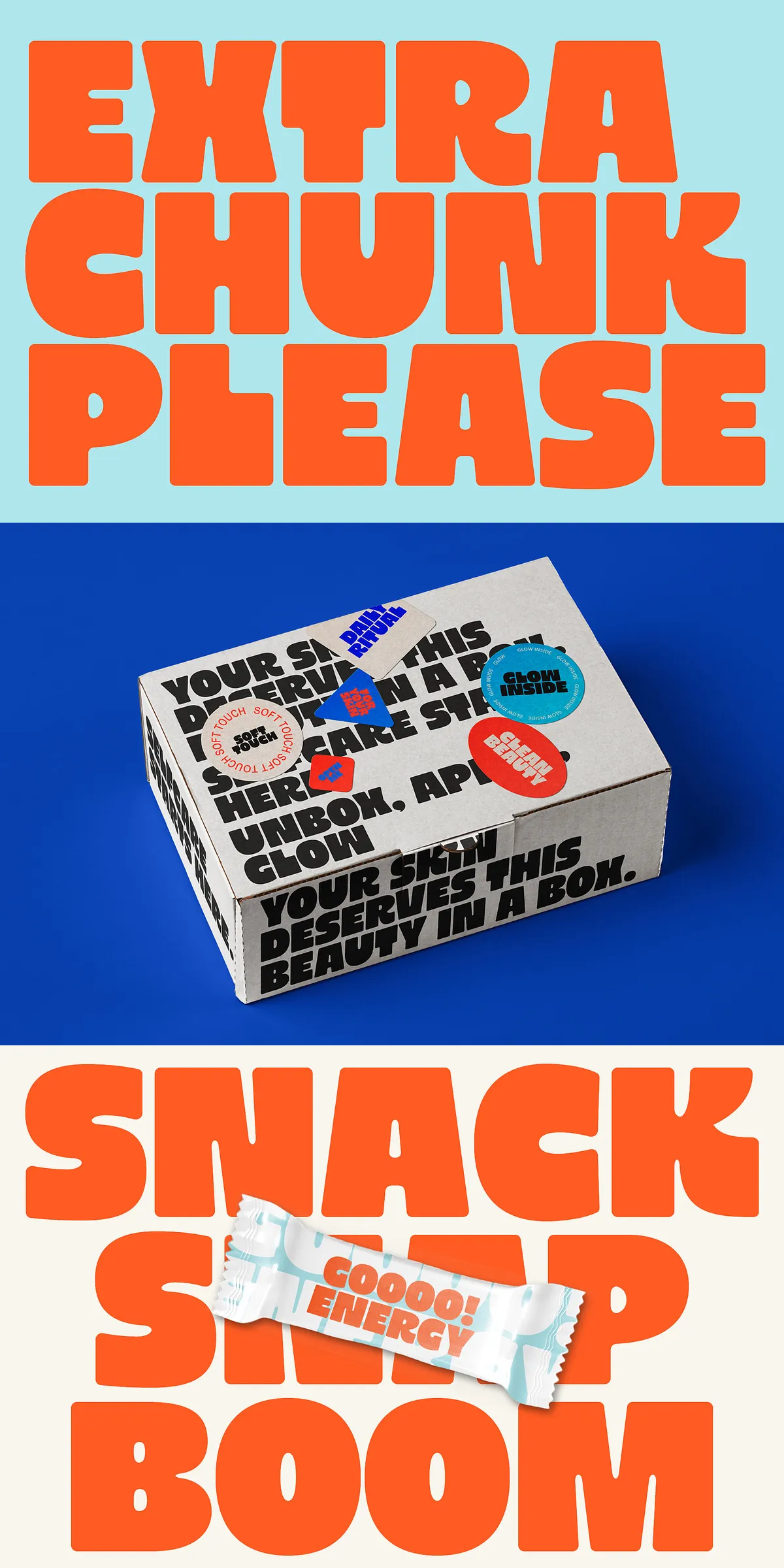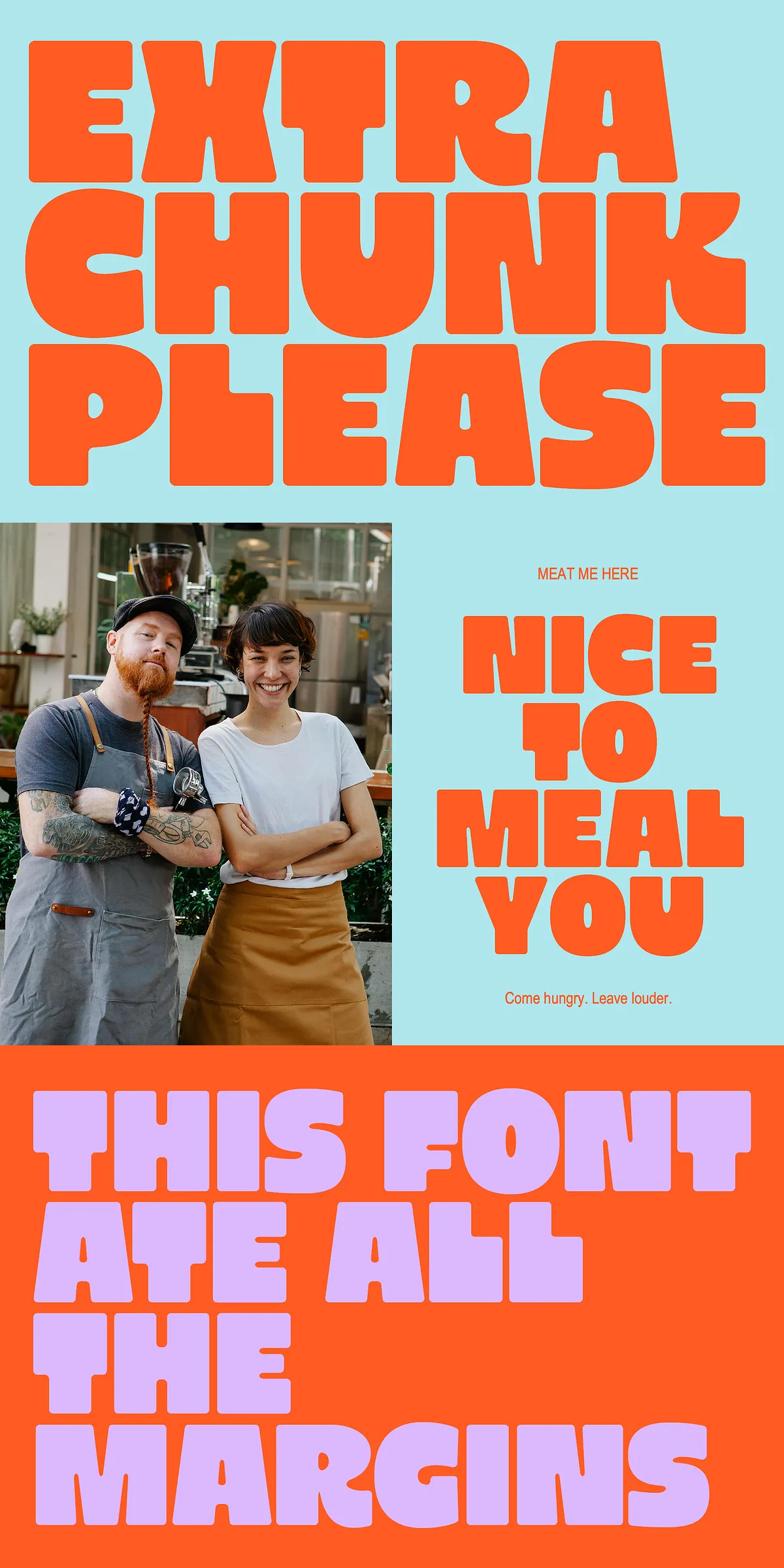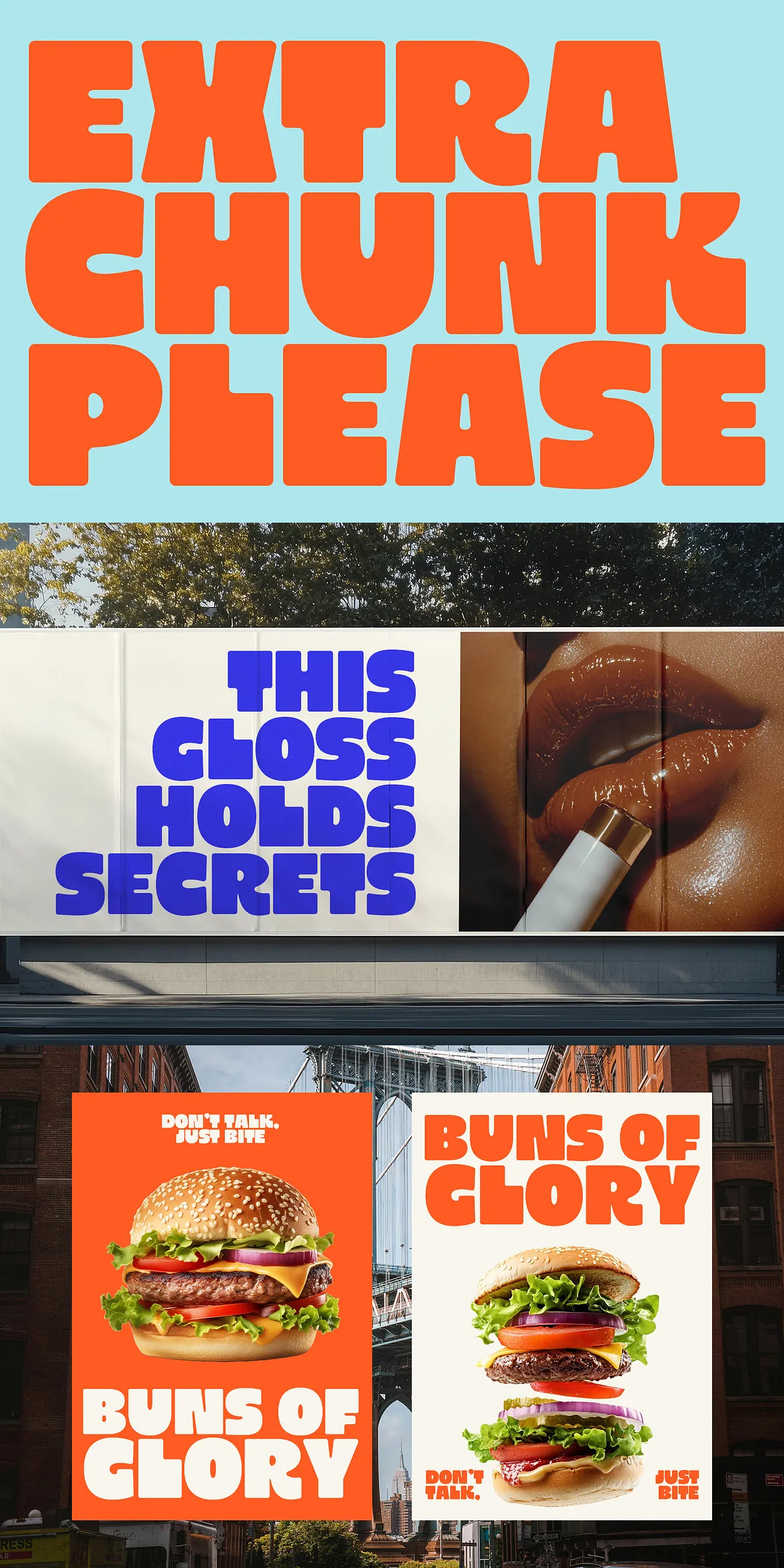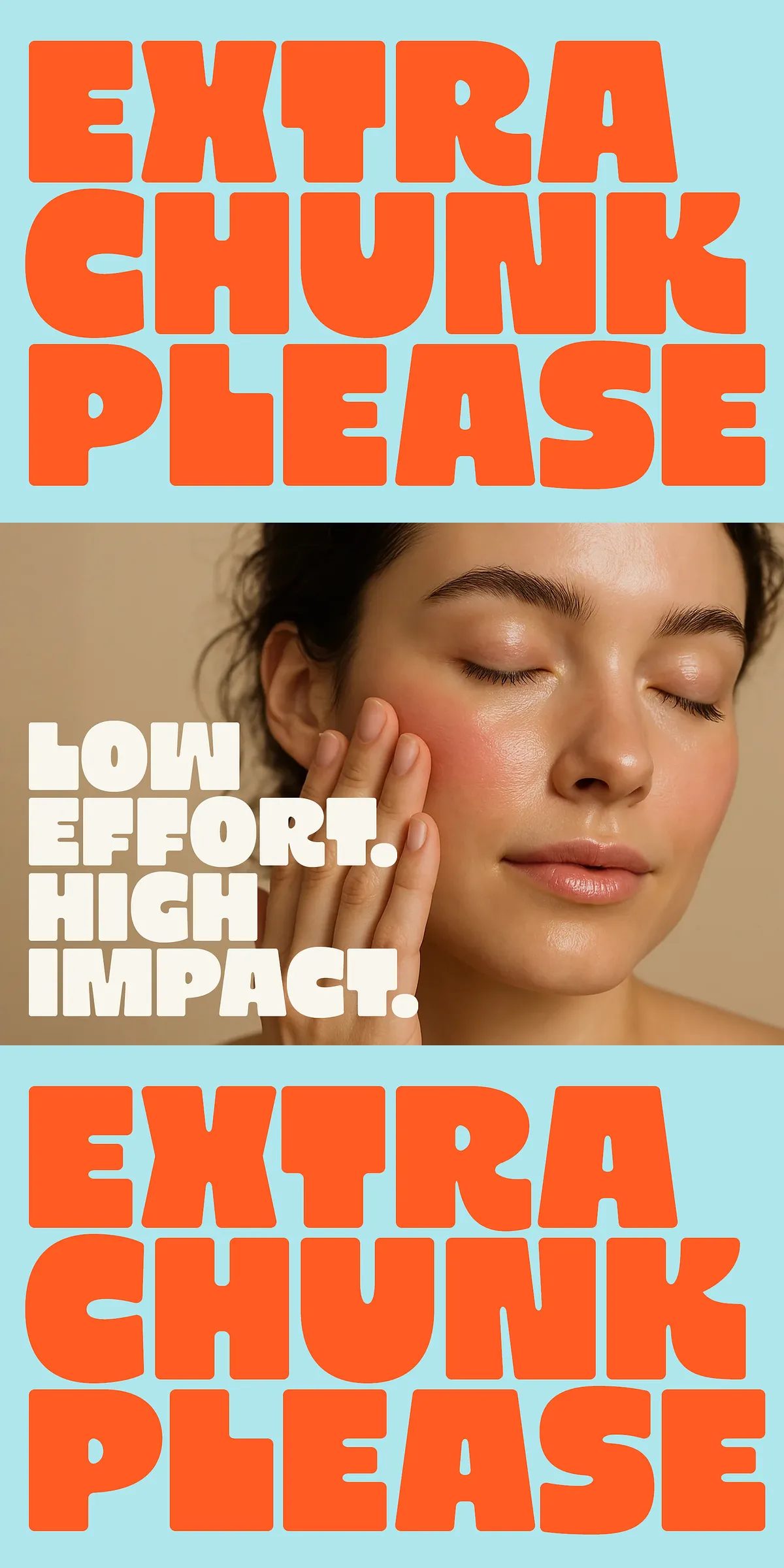
Extra Chunk Please is a modern display font that masterfully combines bold geometric shapes with playful minimalism to create an eye-catching and versatile typographic tool. Designed with rounded edges and a strong character structure, this font is ideal for designers seeking a clean, typography-focused layout that stands out across a variety of applications. Whether you are crafting a brand identity, editorial content, or social media graphics, Extra Chunk Please delivers impactful results with its distinctive style.
Perfect for Multiple Design Uses
The robust and clean design of Extra Chunk Please makes it an excellent choice for a wide range of creative projects. It works especially well for minimal branding and packaging, where the emphasis is on clarity and strong visual presence. Editorial designs also benefit from the font’s bold style, helping headlines and display texts pull the reader’s attention effectively. Additionally, this font excels in clean menus and posters, providing an accessible yet eye-catching look. Social media graphics gain an energetic and modern flair when paired with this confident typeface.
Outstanding Features for Designers
Extra Chunk Please embodies functionality alongside style. It comes equipped with multilingual support, making it suitable for global audiences and ensuring your content communicates effectively across different languages and regions. The font includes a full set of punctuation marks, enabling comprehensive typographic flexibility and precise communication. Furthermore, it is PUA encoded, which means that all special characters and unique glyphs are easily accessible, allowing designers to enhance their creative expression without hassle.
Bold Geometry Meets Playful Minimalism
The fundamental design philosophy behind Extra Chunk Please lies in merging geometric boldness with simplicity and minimal details. The rounded edges soften the overall appearance while maintaining a confident and structured form. This balance creates a font that is both approachable and commanding, perfect for modern branding and creative projects that require a fresh yet authoritative voice.
Typography That Commands Attention
When you use Extra Chunk Please, you adopt a font that actively engages viewers with its powerful presence. The bold strokes ensure legibility and impact even at larger display sizes, making it a perfect choice for titles and headers. Its simplicity further aids in a smooth reading experience, ensuring the message is conveyed clearly without distractions.
Designed for Contemporary Creative Needs
The versatility of Extra Chunk Please extends beyond traditional print uses. It adapts brilliantly to digital formats, from websites to social media posts, ensuring your design maintains consistency and professionalism across platforms. The font’s style reflects current design trends while maintaining a timeless quality, adding longevity to your projects.
Enhance Brand Identity and Messaging
With Extra Chunk Please, your branding can communicate confidence, modernity, and simplicity all at once. Its geometric foundation provides structure, while the playful minimalism invites approachability and friendliness. This font is crafted to be the backbone of dynamic identities, powerful editorial spreads, and engaging visual content, allowing brands and creators to make a lasting impression.
Summary of Extra Chunk Please Features
- Modern display font blending bold geometry with playful minimalism
- Rounded edges enhancing approachability without losing strength
- Ideal for minimal branding, packaging, bold editorial design, menus, posters, and social media graphics
- Comprehensive multilingual support for global reach
- Complete punctuation set for versatile typographic needs
- PUA encoded for easy access to special characters and glyphs
- Perfect for both print and digital applications
Extra Chunk Please is designed to empower creators with a font that actively enhances visual communication and brand storytelling. Its modern style, functional features, and bold personality make it a valuable asset for any typography-centric project aiming for a contemporary and memorable impact.